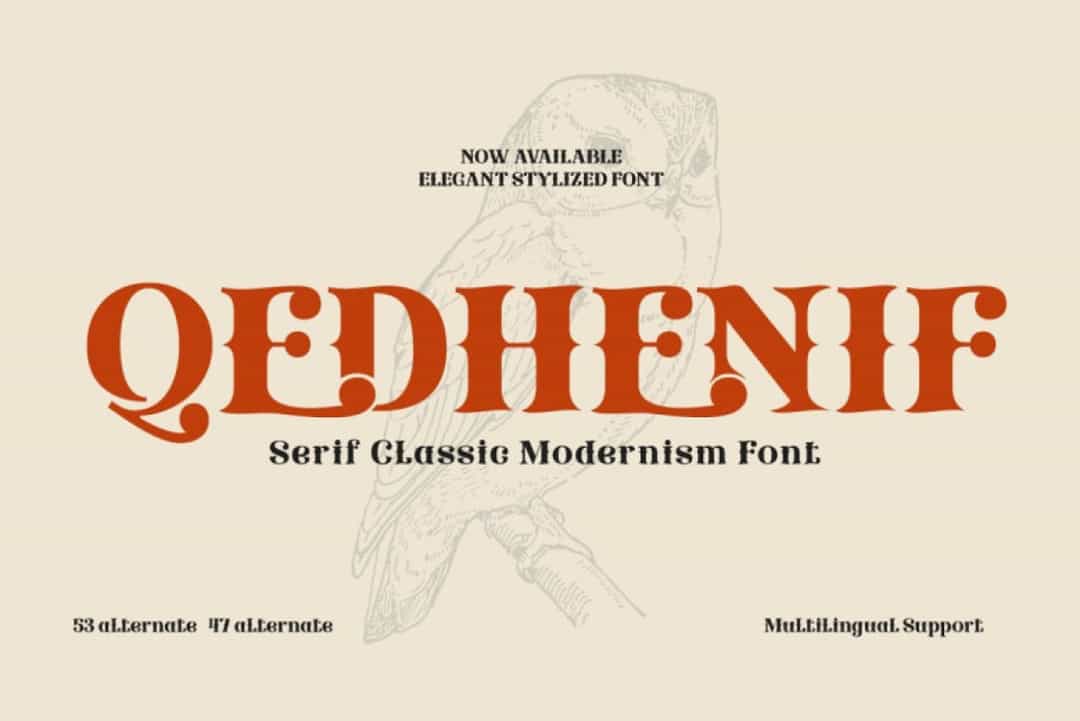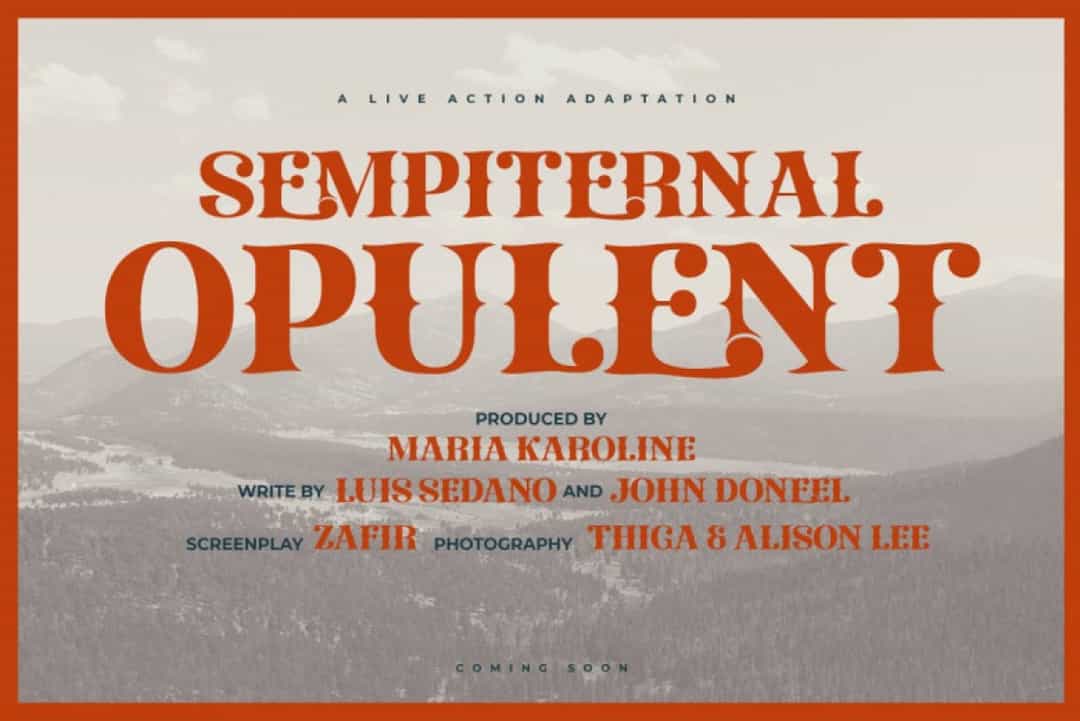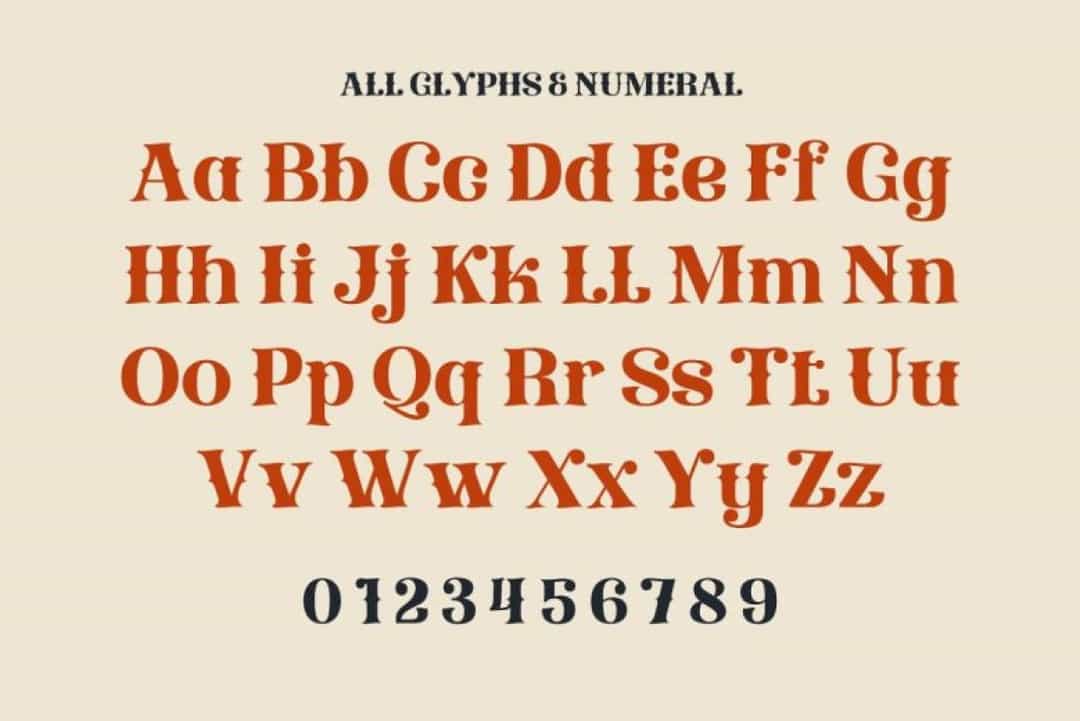
Qedhenif is a classic modernism font with an old-fashioned charm, featuring sophisticated yet elegant lines for creating retro designs that still appear stylish and classic. OpenType includes 53 trendy alternatives and 47 stunning ligatures to further expand its functionality across an array of projects.